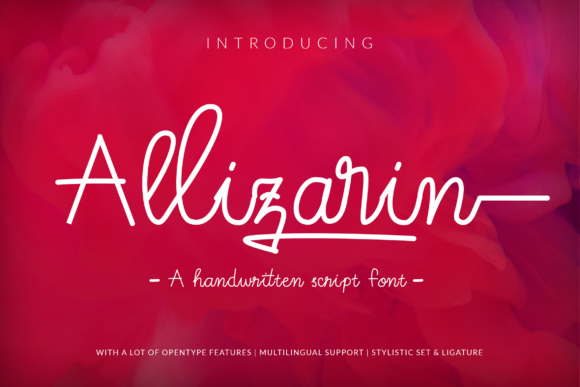
Discover the Playful Allure of the Allizarin Font
Have you ever stared at a blank page, waiting for the perfect font to spark your creativity? That’s exactly where I was when I stumbled upon the Allizarin Font – and it was love at first sight! Its quirky, handwritten style instantly captured my attention, and I couldn’t wait to see where it would take me.
As a designer, you’re always on the lookout for that special something to give your projects an extra edge. The Allizarin Font is that something – a cool and playful handwritten font that adds an authentic twist to any design. With its stunning vibe, it’s perfect for adding a touch of whimsy to your branding, advertising, or even editorial work.
Whether you’re a seasoned pro or just starting out, the Allizarin Font is a valuable addition to your design toolkit. Its unique charm and versatility make it a go-to choice for designers looking to add a little personality to their work.
Allizarin Font Key Features
- Font Family: Allizarin
- Unique Characteristics: Elegant script font with a vintage flair, suitable for formal and creative projects
- Font Style: Script, Calligraphy
Allizarin Font Review
Overall, I think Allizarin Font is a solid choice for designers, but it’s not without its limitations. Let’s dive in and explore what works well and what could be improved.
- Unique and elegant aesthetic: Allizarin Font has a distinctive look that sets it apart from other fonts. It’s perfect for projects that need a touch of sophistication.
- Excellent legibility: The font is easy to read, even at small sizes, making it suitable for body text and captions.
- Good support for various languages: Allizarin Font includes a wide range of language support, making it a great choice for international projects.
- Limited availability of weights: Currently, there are only a few weights available, which may limit its versatility.
- No italic or bold-italic styles: The font lacks these styles, which can make it less suitable for projects that require emphasis.
- Not suitable for display titles: While Allizarin Font is great for body text, it may not be the best choice for display titles due to its relatively plain design.
Allizarin Font is a well-designed font that excels in terms of legibility and language support. While it has some limitations, it’s a great choice for projects that need a clean and elegant look. With a bit more development, I think Allizarin Font could become a top contender in the design world.
Tips for Getting the Most Out of Allizarin
For optimal results, use the Allizarin font in conjunction with bold or italic text to add emphasis and visual interest.
Experiment with different font sizes and colors to create a unique and engaging design.
Use the Allizarin font in combination with other fonts to create a cohesive and professional look.
The Allizarin font is ideal for:
- Brand logos and identity